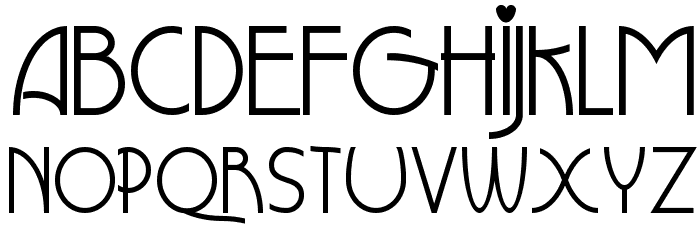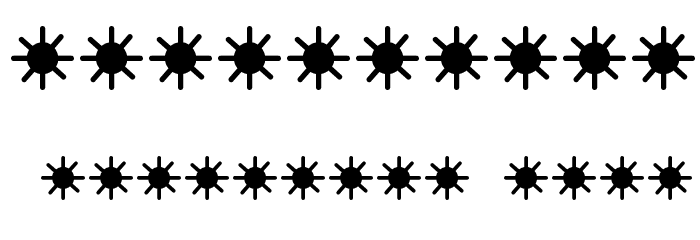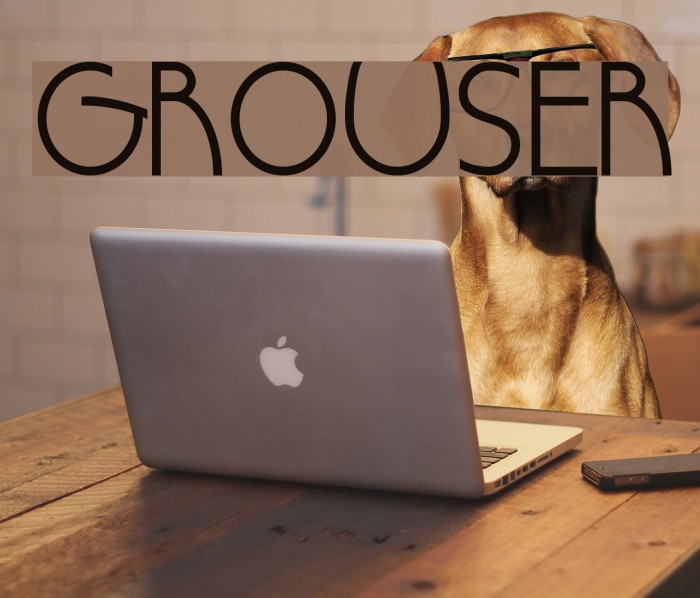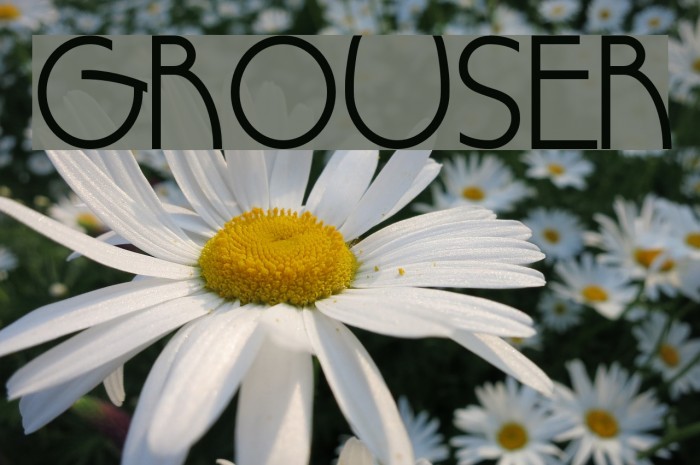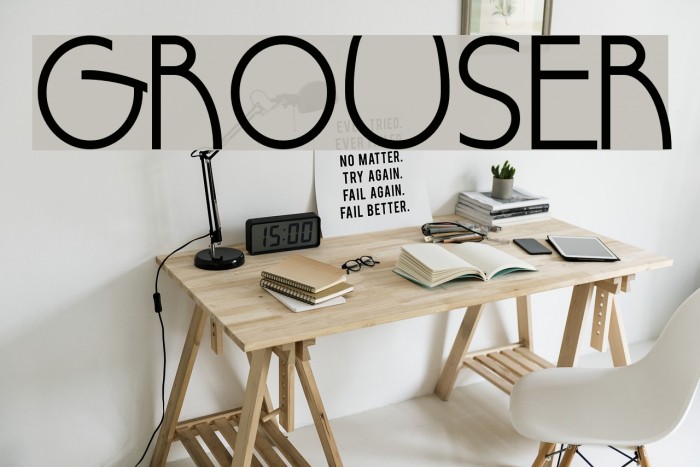
Grouser Font
This font features a unique and playful design with a decorative flair. The uppercase letters are characterized by their tall, slender forms with distinct curves and embellishments, such as the heart-shaped dot on the 'i'. The overall style is whimsical and artistic, making it stand out for creative projects. The font includes a full set of uppercase letters, with consistent stroke widths that give it a balanced appearance. The spacing between characters is normal, ensuring readability while maintaining its decorative appeal. The font's design is suitable for projects that require a touch of elegance and creativity.
A whimsical and decorative font with tall, slender uppercase letters and unique embellishments.
- Proposed Projects: Ideal for greeting cards, invitations, posters, and branding materials that require a creative and artistic touch.